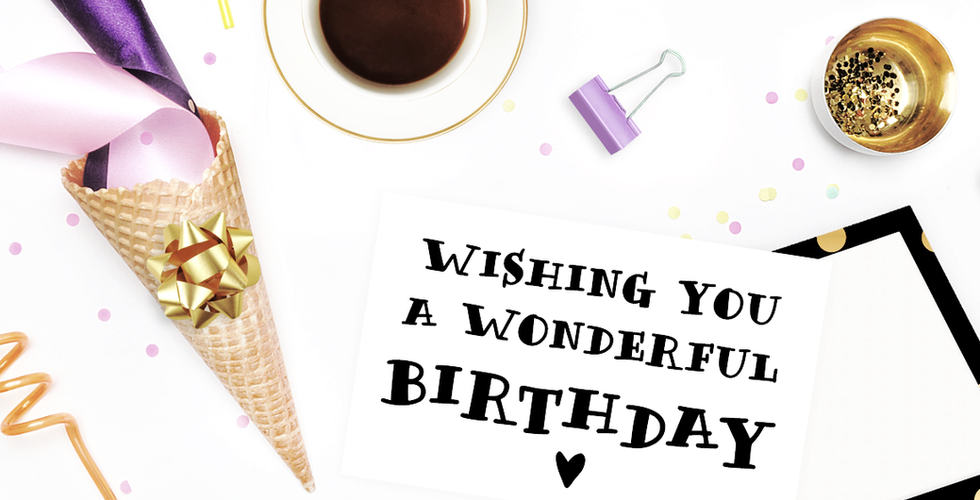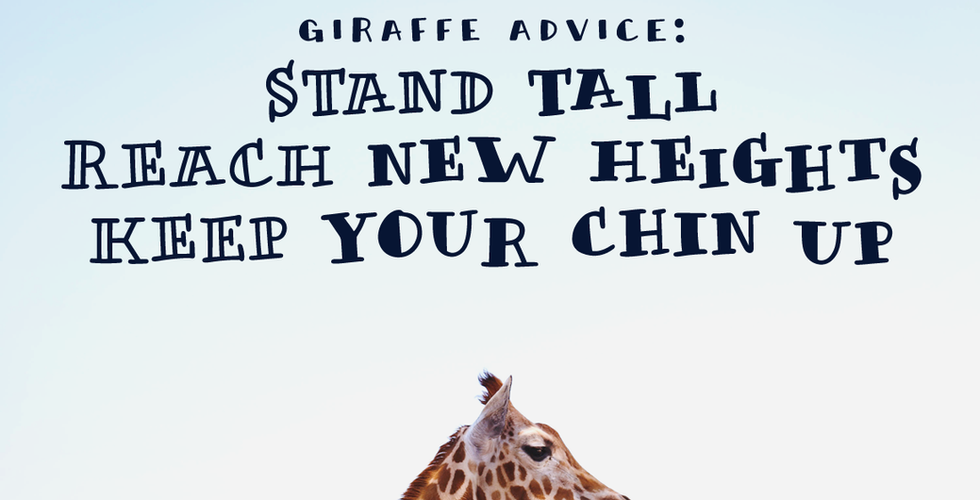
New font! Honolulu
Just in time for the summery weather, here is Honolulu, a playful all-caps font with four variations and a jumpy alternative.
It was inspired by the lettering I have been using on postcards for friends for a while now (example below). I was just cleaning my desk and have found sketches similar to this font going back a few years (yes, that's how often I clean my desk, don't judge!).
Each font includes:
two sets of uppercase letters,
numbers
punctuation and symbols
multilingual support.
Honolulu
Honolulu is a fresh font, perfect for the summer, and for any design that needs a bold hand-drawn feel, such as postcards, notes and quotes, logos and branding. Check out some examples below:
Honolulu